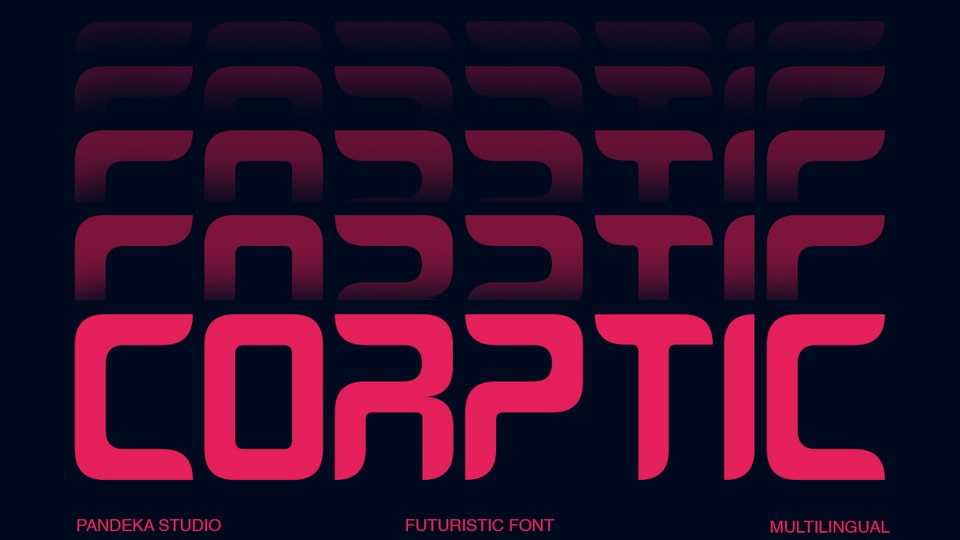
Download Corptic font, a futuristic display typeface inspired by sci-fi aesthetics, digital interfaces, and forward-thinking technology with its rounded letterforms and modular structure.